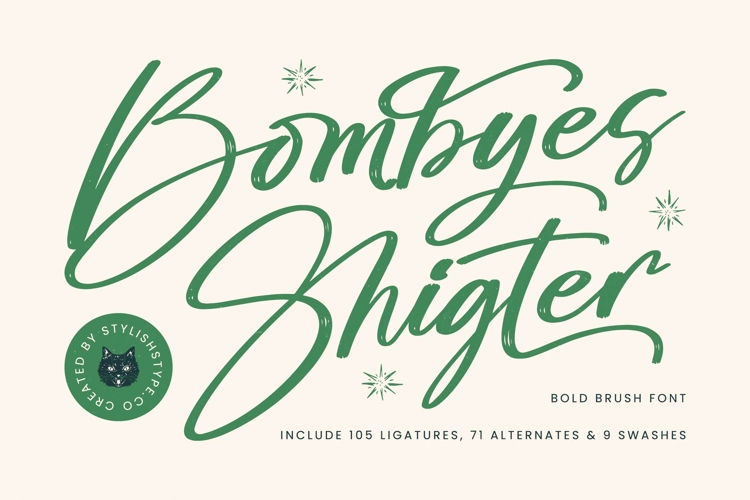
Bombyes Shigter - Bold Brush Font
Discover the captivating allure of Font Bombyes Shigter - Bold Brush Font Script, a truly remarkable typeface designed to infuse your projects with immediate impact and authentic personality. This bold brush script embodies a dynamic flow, featuring organic, handcrafted strokes that exude both confidence and artistic charm. Its naturally textured appearance gives every word a bespoke feel, ensuring your message stands out with an undeniable, distinctive presence.
Unleash unparalleled creative freedom with Font Bombyes Shigter - Bold Brush Font Script, equipped with an impressive array of OpenType features. With 105 ligatures, 71 alternates, and 9 swashes, this font offers endless possibilities for customization, allowing you to craft truly unique typographic compositions. With its extensive multilingual support, Font Bombyes Shigter - Bold Brush Font Script adapts seamlessly across global markets, making it incredibly versatile for international projects.